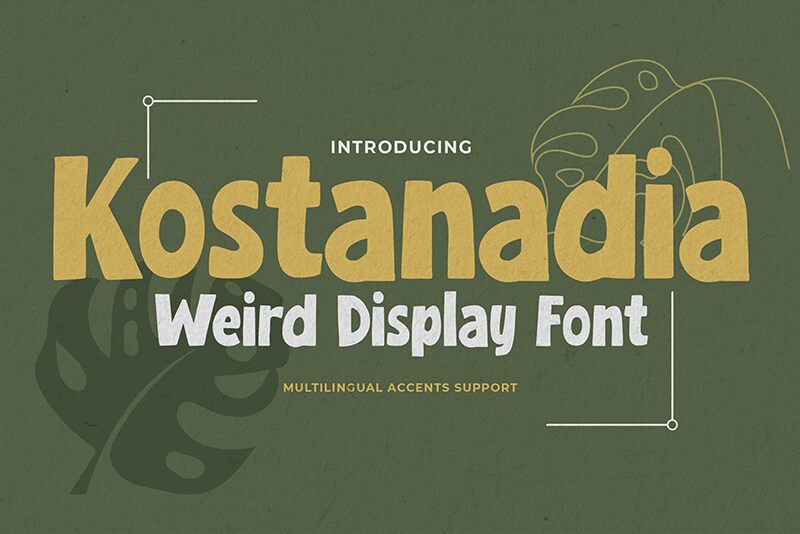
Kostanadia
Kostanadia is not your average font. Designed by Gassstype, this display font boasts a modern style and dramatic movement that is both casual and quick. Its bold weight and cartoon style make it perfect for a variety of creative projects, from labels to posters to DIY designs. The unique textured characteristic of Kostanadia gives it a natural and authentic look, making it stand out from other fonts in its category.
Whether you're working on branding, packaging, greeting cards, websites, or photography overlays, Kostanadia is versatile enough to suit any project. Its quirky yet modern look adds a touch of uniqueness to any design, making it the ideal choice for those looking to make a statement with their typography. Explore the potential of Kostanadia in your next creative endeavor and see how its distinct style can elevate your work.